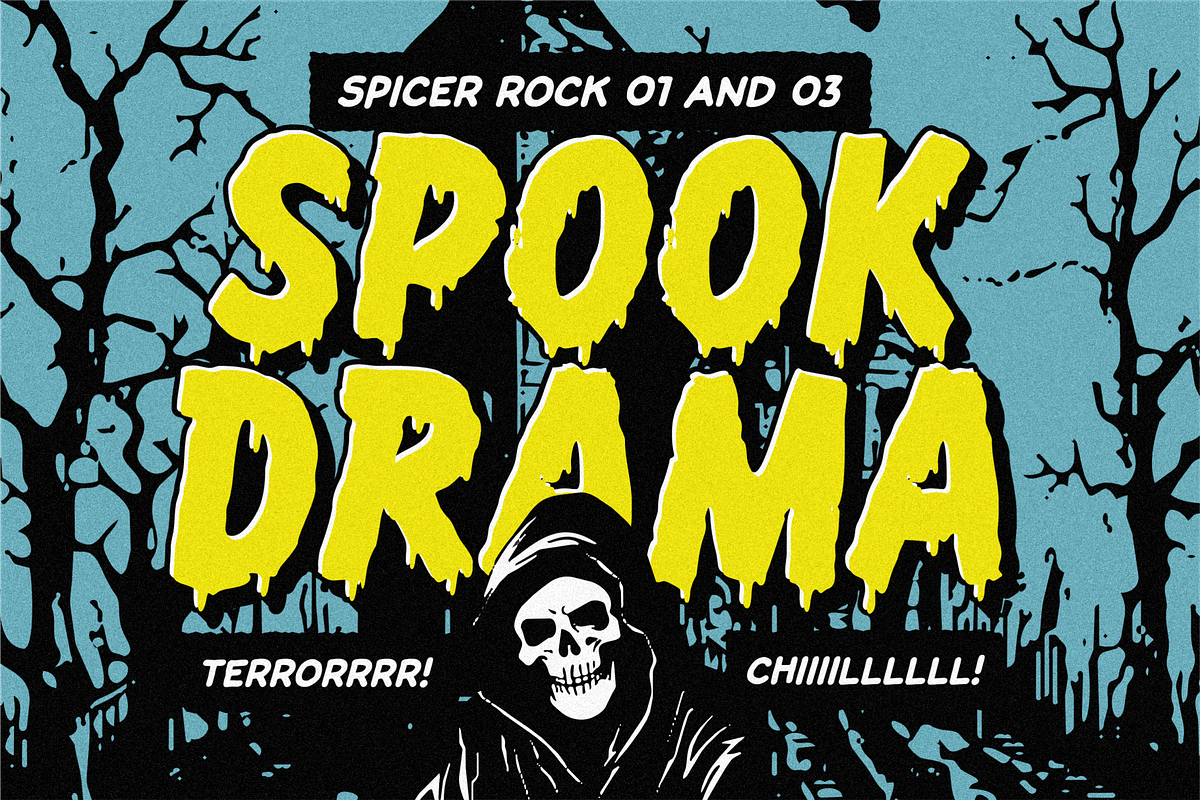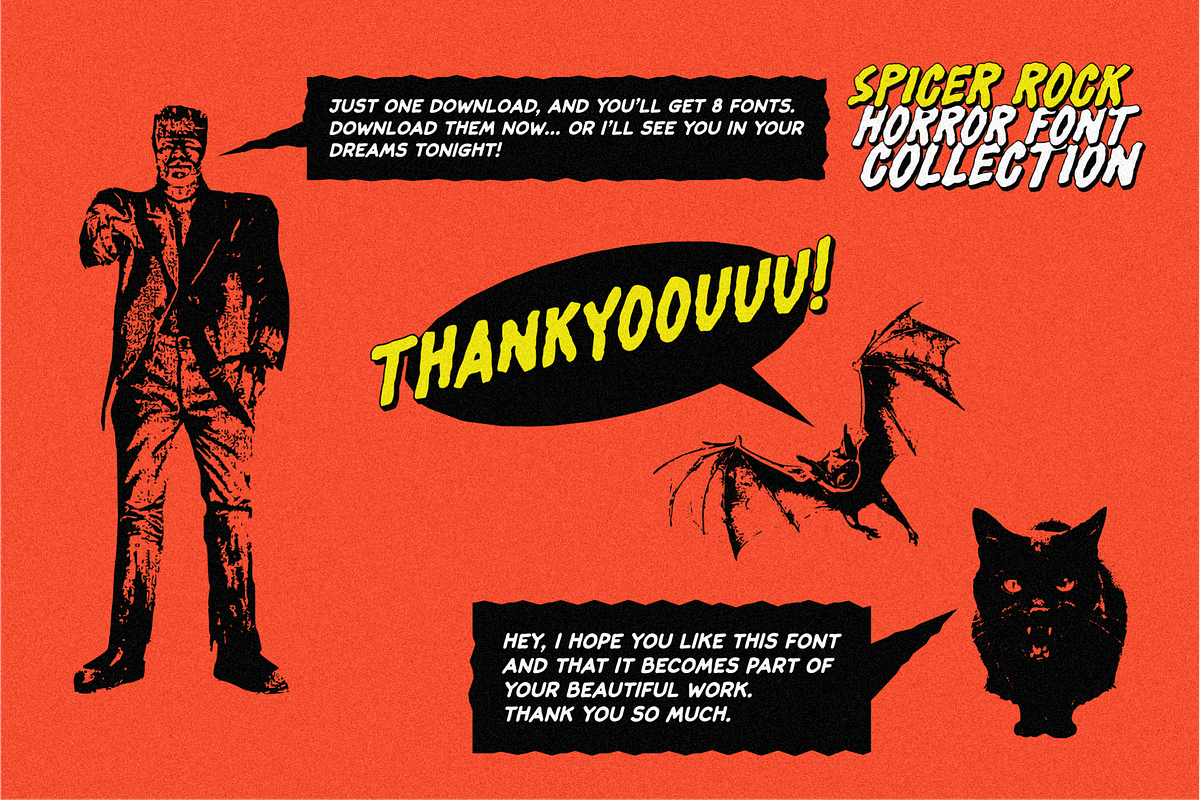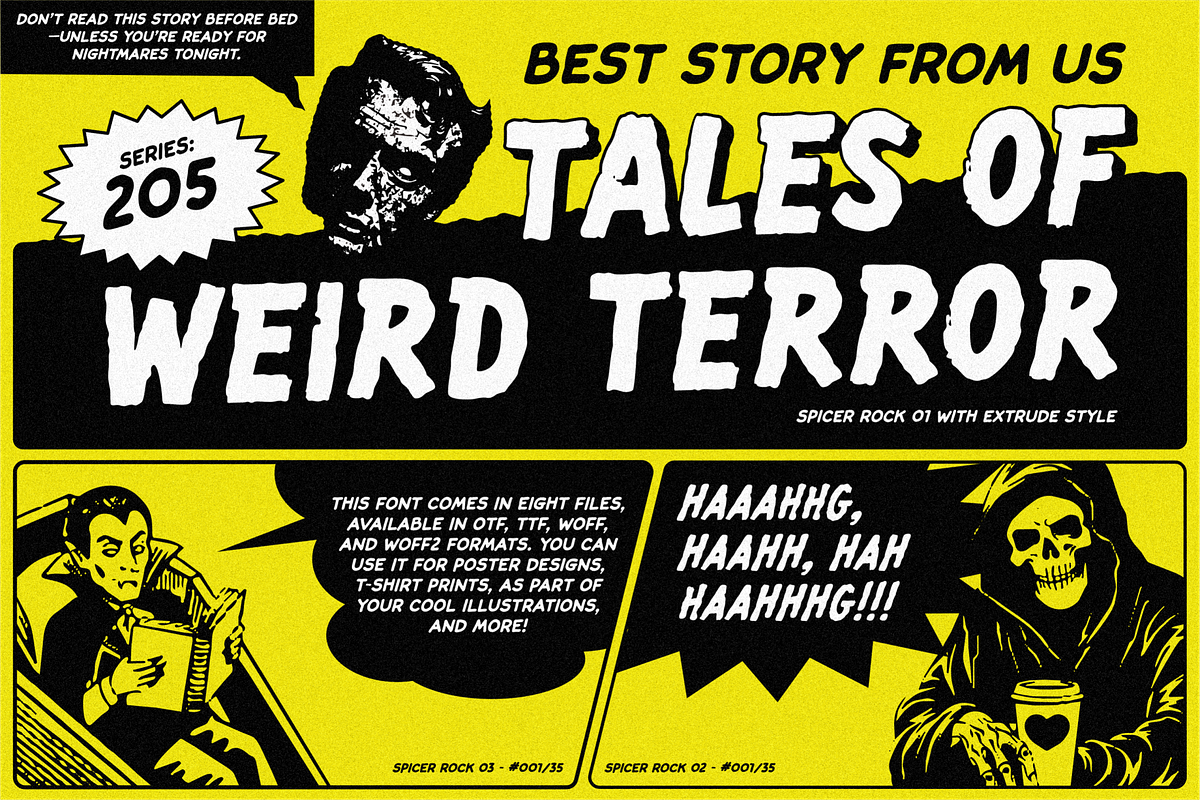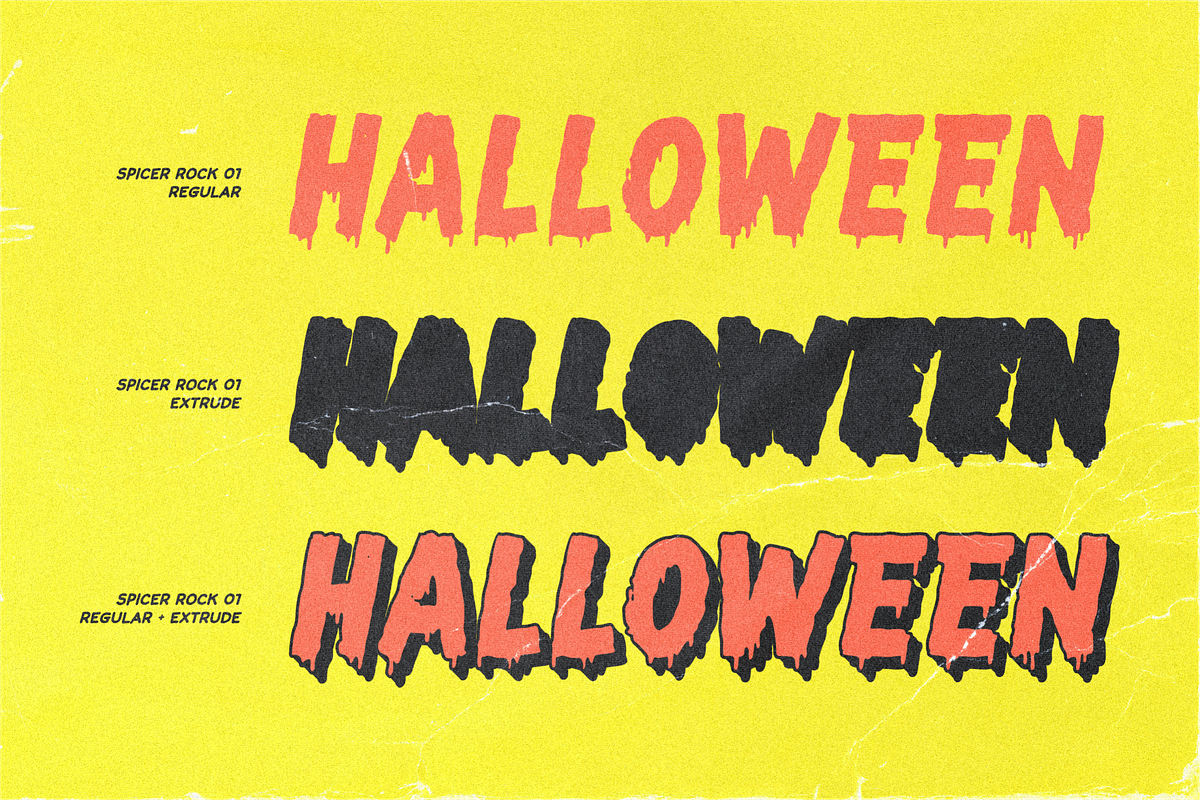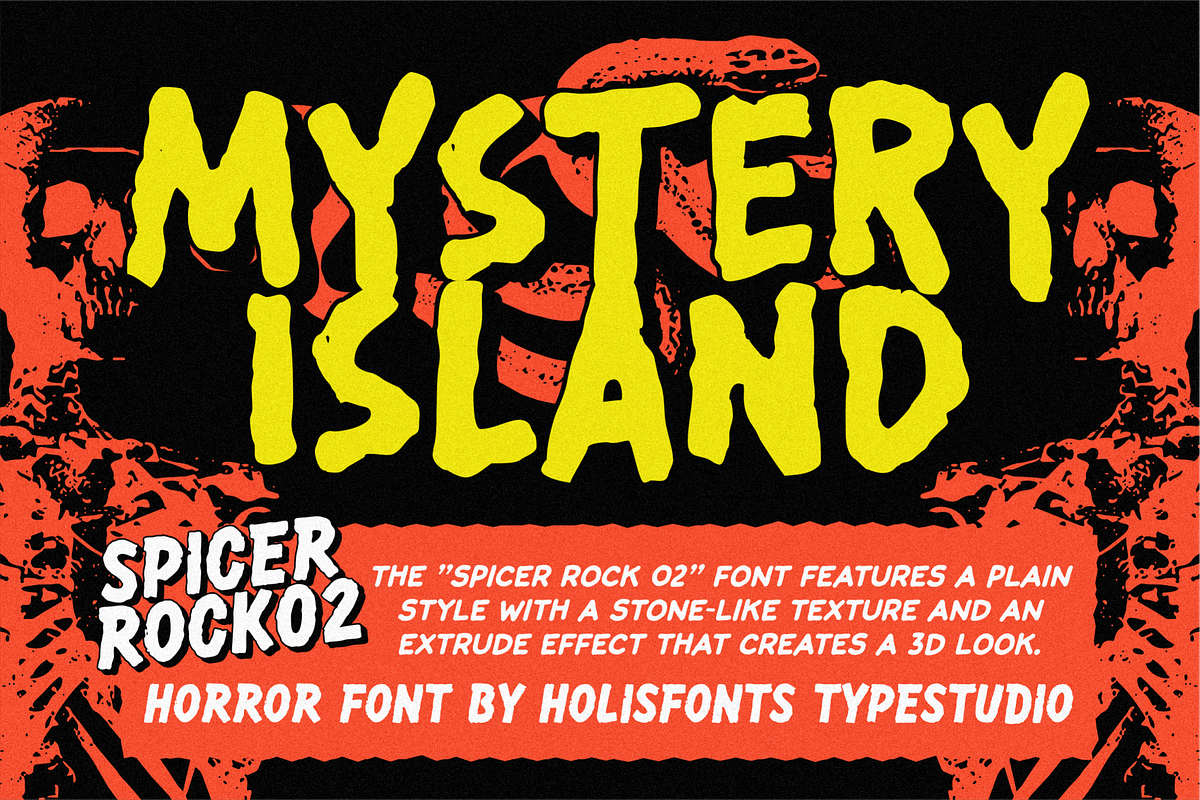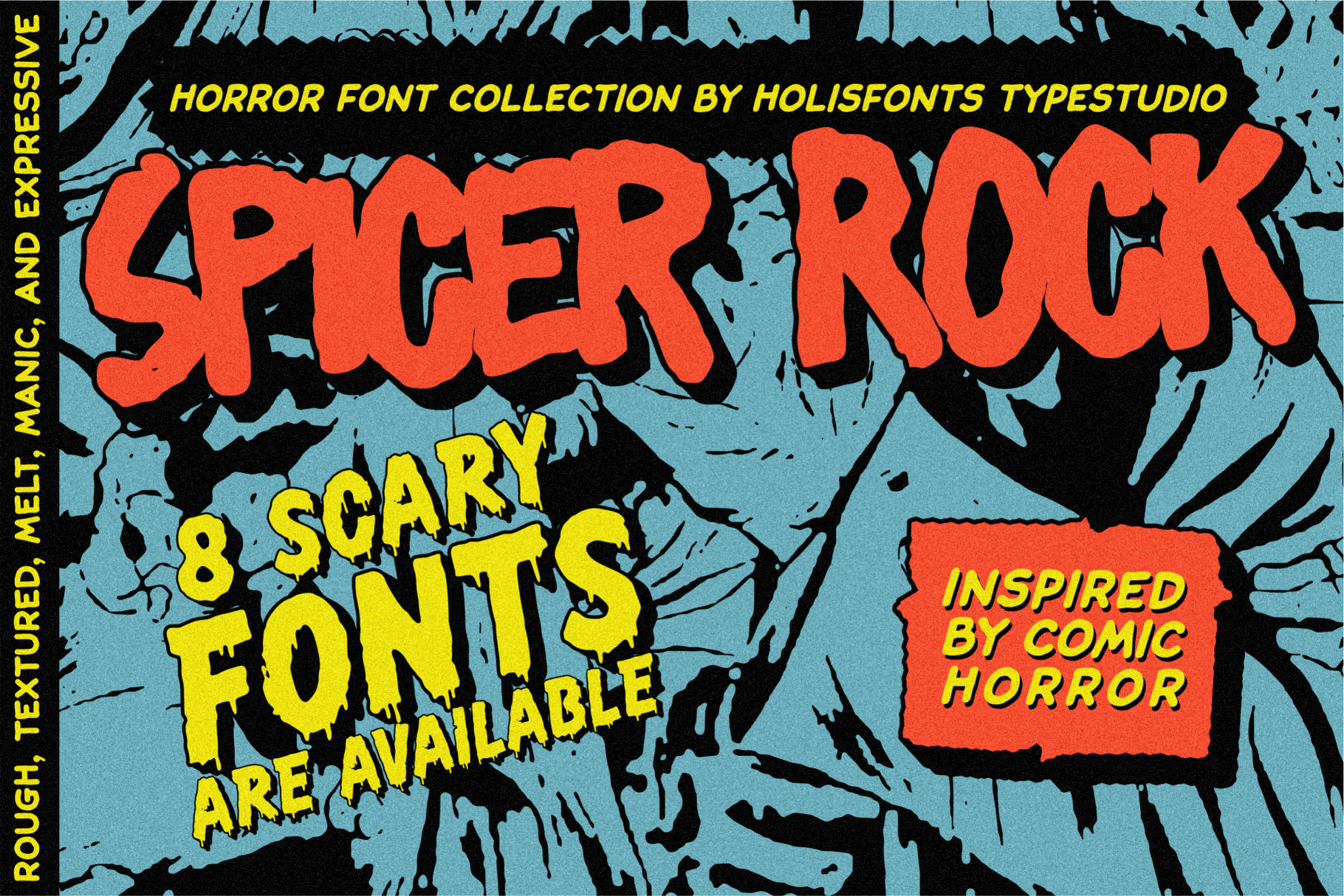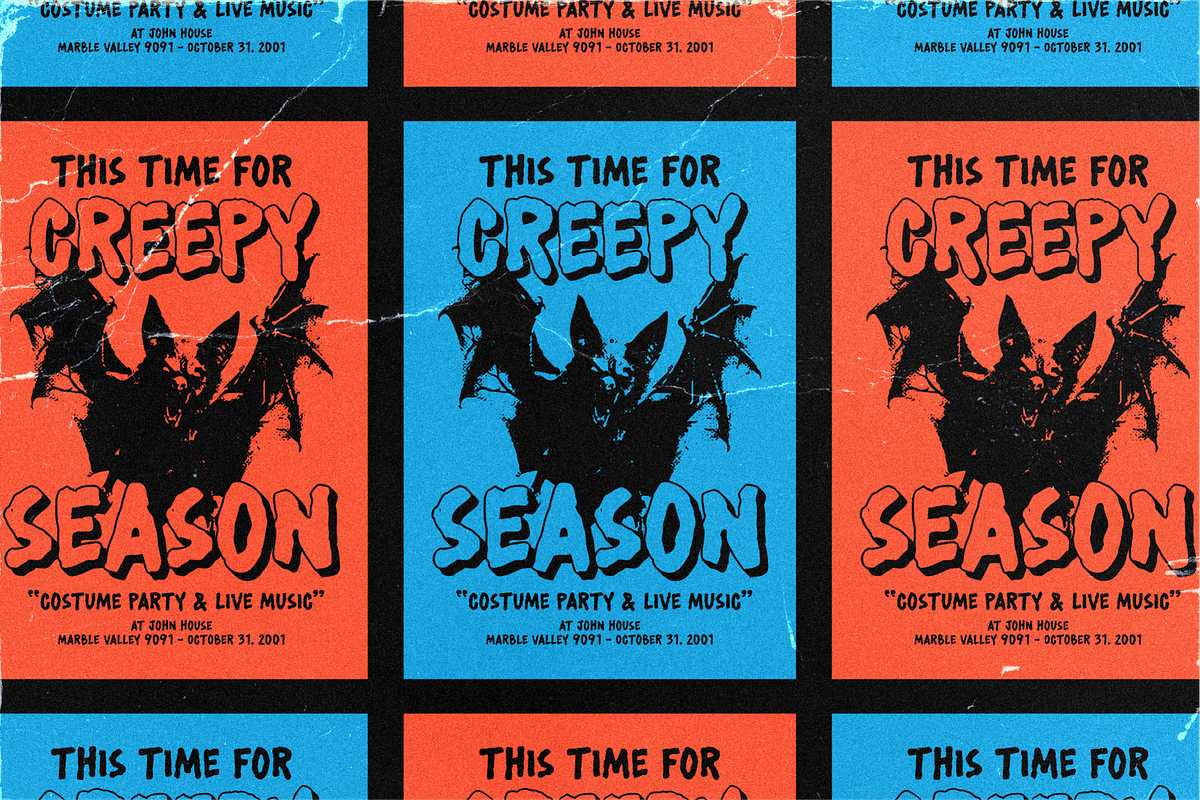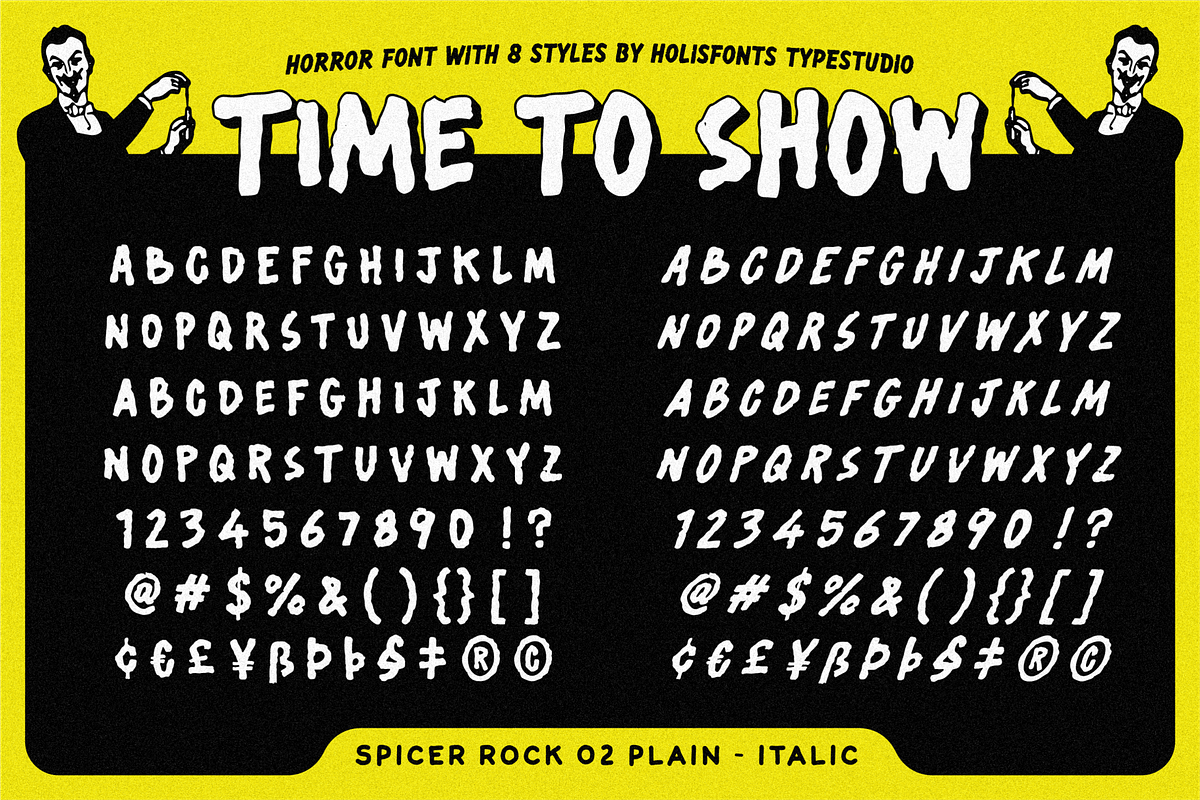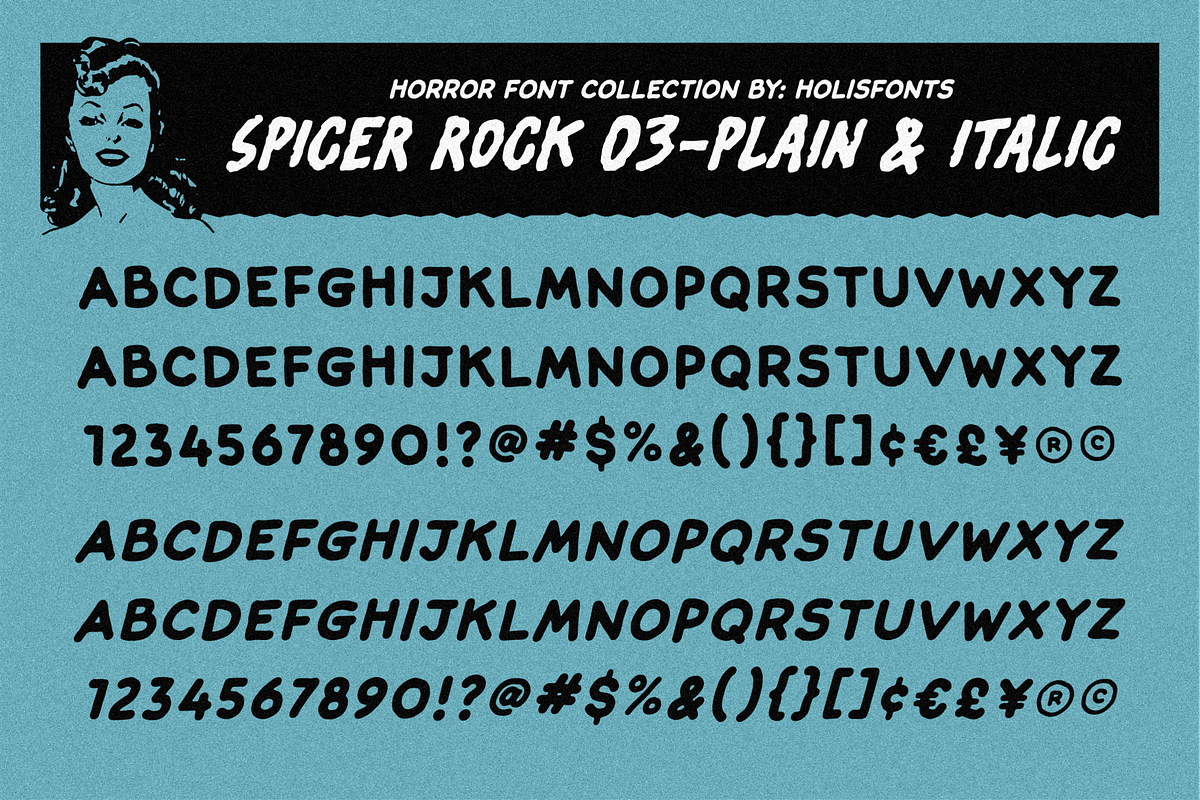
Spicer Rock Horror Font Collection
Unleash the spine-chilling vibes of classic 1950s horror comics with Spicer Rock, a manic, expressive, and textured horror font collection. Specifically designed to capture the raw, gritty energy of vintage pulp magazines, this set of 8 distinct fonts delivers instant drama, dread, and 3D retro impact to your creative projects.
8 Scary Font Styles: Includes Regular, Italic, and Extrude variations for maximum versatility.
Distinct Textures: Features rough, dripping, melting, and stone-like textured options.
Easy 3D Effects: Stack the Regular and Extrude styles effortlessly to create eye-catching 3D comic titles.
Authentic Vintage Look: Designed to mimic the hand-drawn style of old-school horror comic book covers.
Full Character Set: Includes uppercase characters, numbers, and essential punctuation.
Perfect Use Cases:
Halloween party invitations and graphics
Retro pulp comic book covers and illustrations
Scary movie posters and thriller title cards
Edgy streetwear and gothic t-shirt apparel designs
Band flyers, stickers, and brand merchandise